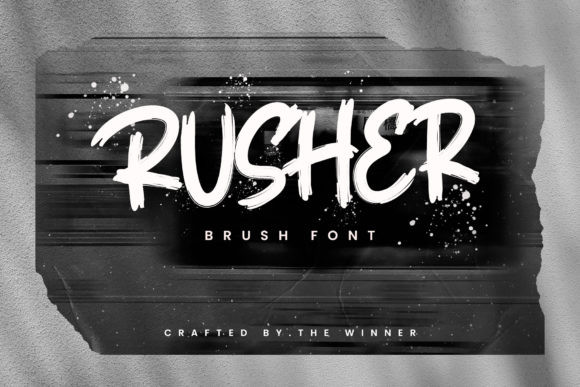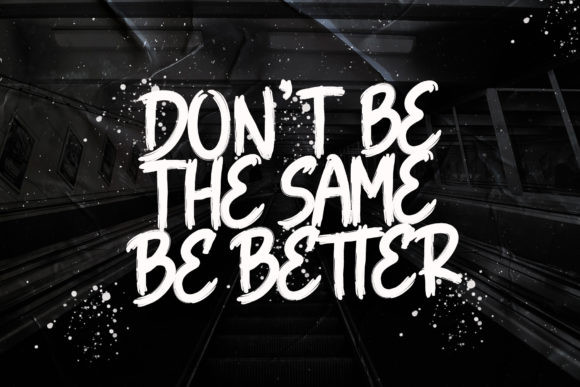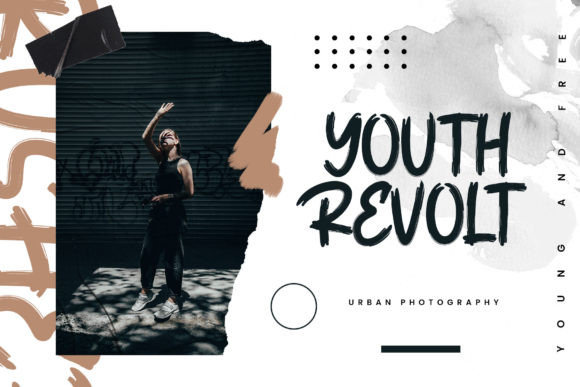
Rusher Font
Rusher is a cool, brushed script font, crafted to give your headlines and logotype projects a stylish touch. This font reads as strong, confident, and dynamic and can add tons of nostalgic character to your designs.